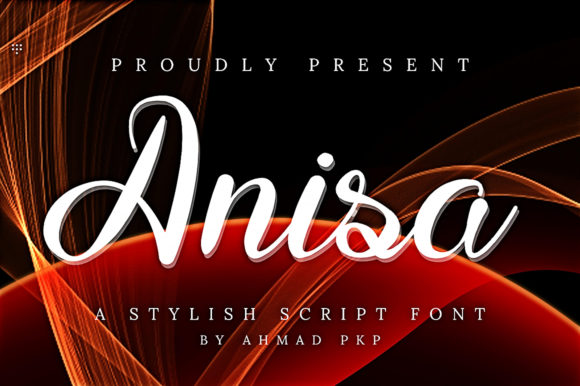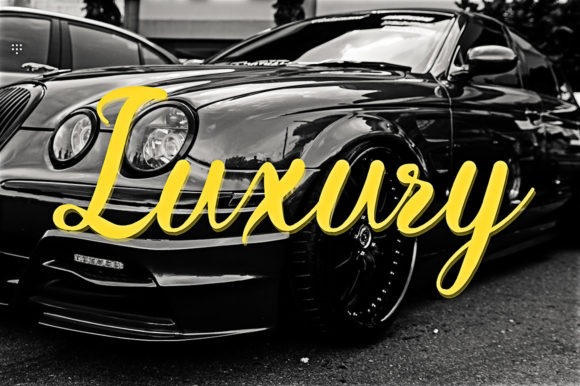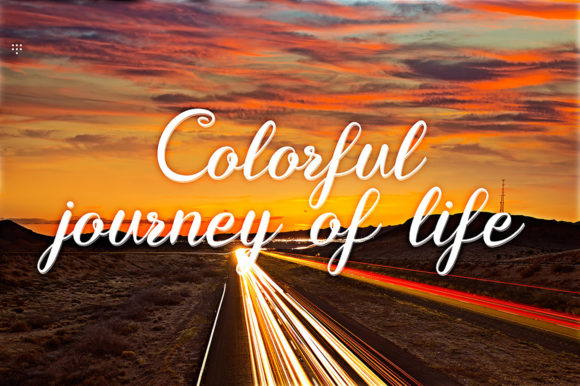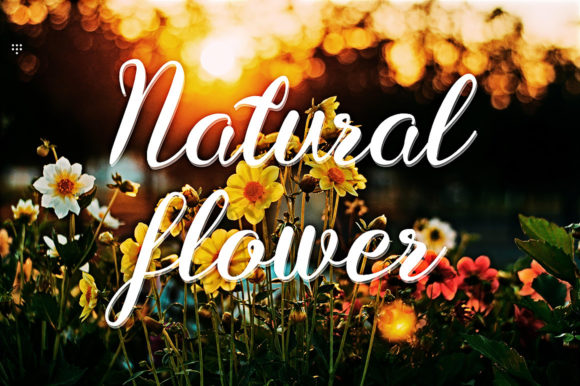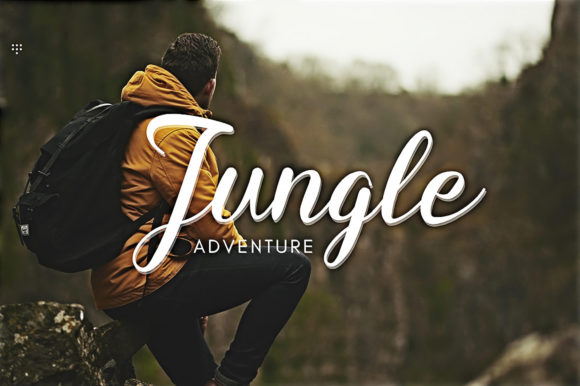
About Anisa Font
Anisa is a versatile and charming script font that effortlessly adds a touch of elegance and uniqueness to a variety of design projects. With its clean and easy-to-read style, Anisa is the perfect choice for enhancing various creative endeavors, allowing you to create stunning visuals that leave a lasting impression.
For wedding invitations, Anisa brings a sense of romance and sophistication. Its graceful strokes and delicate curves add a timeless elegance to the text, setting the tone for a beautiful and memorable event. Whether you’re designing the main invitation, RSVP cards, or save-the-date notices, Anisa’s simplicity and uniqueness contribute to a cohesive and visually appealing suite.
Business cards take on a professional and stylish look with Anisa. Its distinct yet approachable letterforms create a memorable first impression, making your contact information stand out in a refined and elegant manner. The font’s versatility ensures that it can complement various business types and industries.
Greeting cards become works of art when adorned with Anisa’s graceful script. Whether it’s a heartfelt note, a birthday wish, or a thank-you message, the font’s simplicity and uniqueness add a personal touch that resonates with the recipient. Anisa’s easy-to-read design ensures that your message is conveyed with clarity and charm.
Social media posts benefit from Anisa’s clean and eye-catching appearance. Whether you’re sharing quotes, announcements, or promotional content, the font’s simplicity and uniqueness enhance the visual appeal of your posts, making them stand out in crowded feeds.
Wall art takes on a sophisticated and artistic vibe when created with Anisa. Its elegant script adds a touch of luxury and refinement to typography-based artwork, making it suitable for home decor, inspirational quotes, and personalized gifts.
Anisa’s versatility extends to various other applications, including packaging design, book covers, and logo creation. Its simple yet unique style makes it a versatile choice that can adapt to different design needs while maintaining its elegant and charming aesthetic.
In summary, Anisa is a simple, unique, and versatile script font that adds an elegant touch to a wide range of design projects. From wedding invitations and business cards to greeting cards, social media posts, and wall art, Anisa’s clean and easy-to-apply design ensures that your creations are both visually appealing and impactful. Embrace the beauty of Anisa and elevate your designs with its timeless charm.